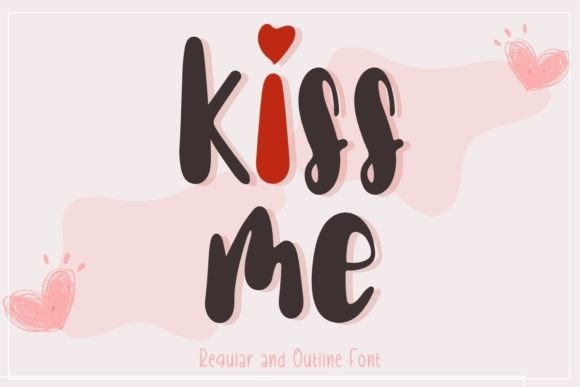
Dive into the world of elegance and charm with Kiss Me Font, a captivating display font that will add a touch of playfulness and allure to your creative projects. Designed by the talented AnningArts, Kiss Me Font is the perfect choice for those seeking a font that exudes personality and charm.
With its beautiful cursive J, Kiss Me Font stands out from the crowd, making it an ideal choice for creating eye-catching designs that are sure to leave a lasting impression. Whether you're designing banners, mugs, cards, shirts, stationery, or social media posts, Kiss Me Font will elevate your designs and make them shine.
Its versatility knows no bounds, making it suitable for a wide range of design projects. From whimsical invitations to elegant branding, Kiss Me Font adapts seamlessly to your creative vision, adding a touch of sophistication and charm.
Unleash your creativity and let Kiss Me Font guide you on a journey of artistic expression. Its user-friendly format allows for effortless customization, ensuring that your designs truly reflect your unique style and personality.
Experience the delight of designing with Kiss Me Font and witness the transformation of your creative projects into captivating masterpieces. Its charm and elegance will leave you inspired and eager to create designs that capture the hearts of your audience.